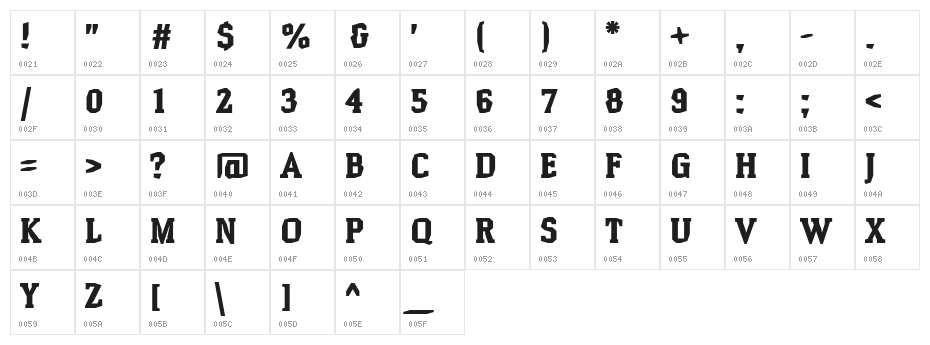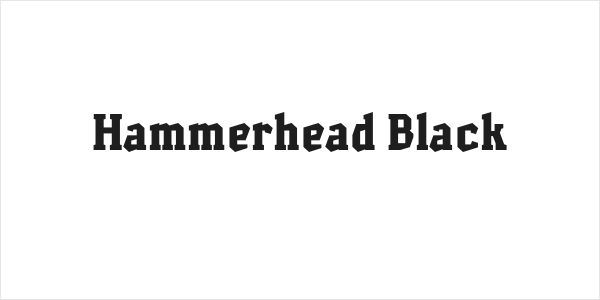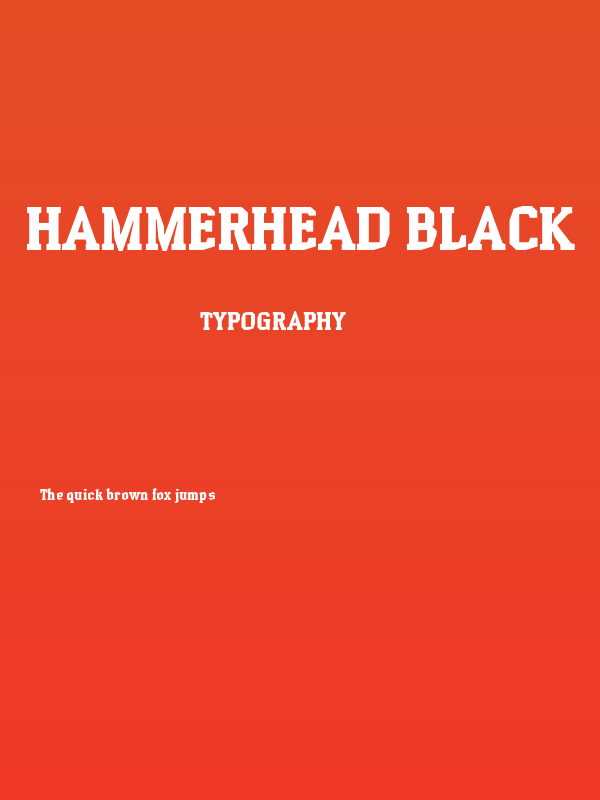
Hammerhead Black Font
Hammerhead Black Description
This font features a bold and striking design with strong geometric shapes and sharp angles, giving it a powerful and commanding presence. The uppercase and lowercase letters maintain a consistent weight, creating a uniform appearance that enhances readability. The numbers and special characters are equally bold, ensuring they stand out in any context. The font's overall style is reminiscent of industrial or sports themes, making it suitable for projects that require a robust and dynamic look.
| Proposed Projects | Ideal for sports branding, posters, headlines, and any project needing a bold, impactful typeface. |